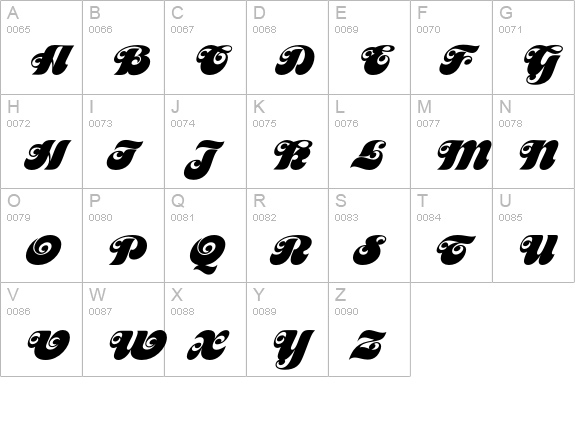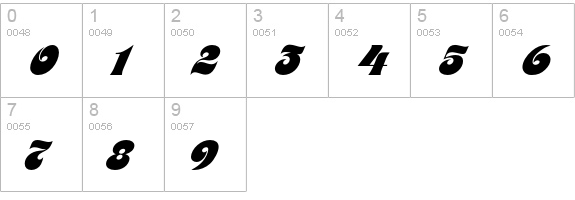
ShMotterFemina-Normal Font Details
ShMotterFemina-Normal is the standard, neutral variant in the ShMotterFemina typeface family \xE2\x80\x94 well suited to general body text, paragraphs, and standard typographic work.
ShMotterFemina-Normal font is an exquisite and elegant typeface that exudes sophistication and grace. Its delicate curves and perfect balance make it an ideal choice for projects that require a touch of femininity and refinement. The letterforms of ShMotterFemina-Normal font are meticulously crafted, with each stroke flowing seamlessly into the next, creating a harmonious and pleasing visual experience. The slightly condensed design adds a modern twist, making it versatile for a wide range of applications. This font is not only visually appealing but also highly legible, ensuring that your message is conveyed effectively. Whether you are designing a logo, branding materials, invitations, or any other creative project, ShMotterFemina-Normal font will elevate your work to new heights. The best part? ShMotterFemina-Normal font is freely available to download at FontsMarket.com. You can easily access this stunning font and incorporate it into your designs without any hassle. The freedom to use this font opens up endless possibilities for designers, allowing them to express their creativity without limitations. So, if you are looking for a font that combines elegance, versatility, and legibility, look no further than ShMotterFemina-Normal font. Download it for free at FontsMarket.com and let your imagination soar.